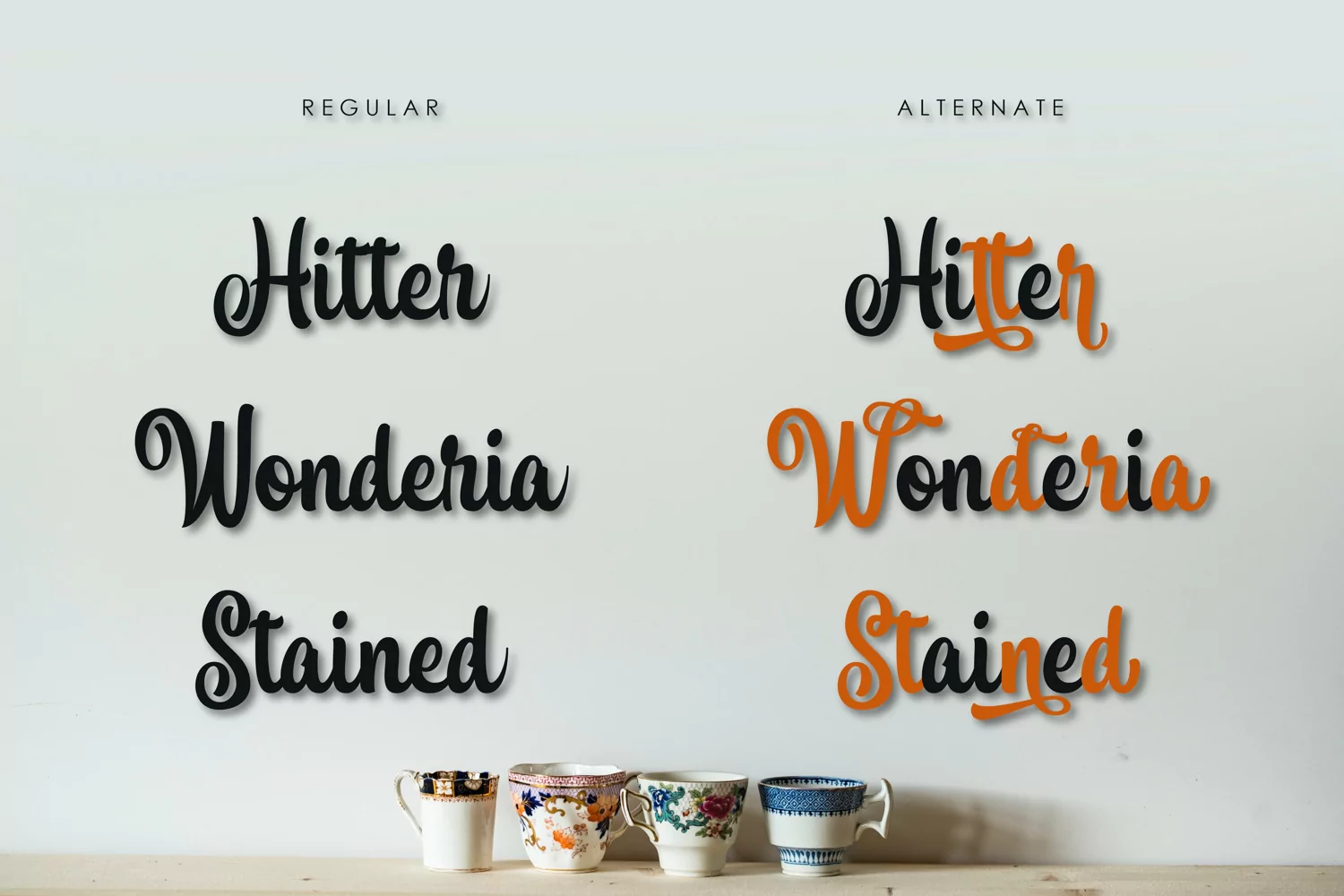
Introducing
Arucard! A classy script font with personality.
Arucard is perfect for branding project, logotype, label, product packaging, headline, letterhead, typography, apparels, or simply as stylish text to any background image.
- Arucard Swash.otf. Set of swashes, the perfect finishing touch to underline and exit stroke your Arucard text.